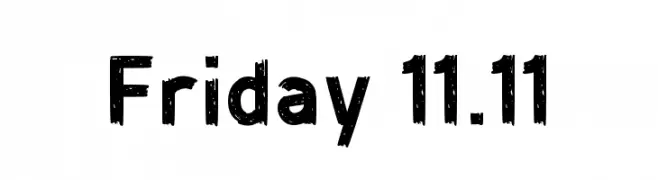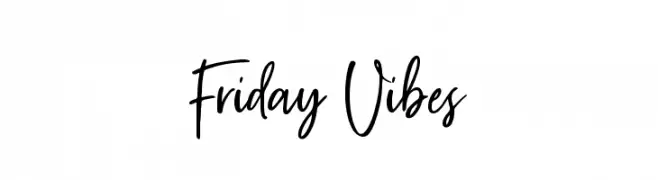
A monospaced font with a modern yet vintage feel, featuring consistent widths and rounded finishes.
A playful, handwritten script font with smooth curves and dynamic strokes.
A bold, distressed font with a textured, vintage appearance.
A bold, energetic script font with a dynamic, handwritten style.
An elegant script font with intricate swirls and decorative flourishes.
A bold, varsity-style font with a textured, dotted interior and strong outlines.
A playful and casual font with rounded, smooth letterforms.
A lively and dynamic italic font with smooth, flowing curves.
A dramatic, edgy font with sharp, jagged edges and a distressed look.
A playful, handwritten font with a casual and dynamic style.